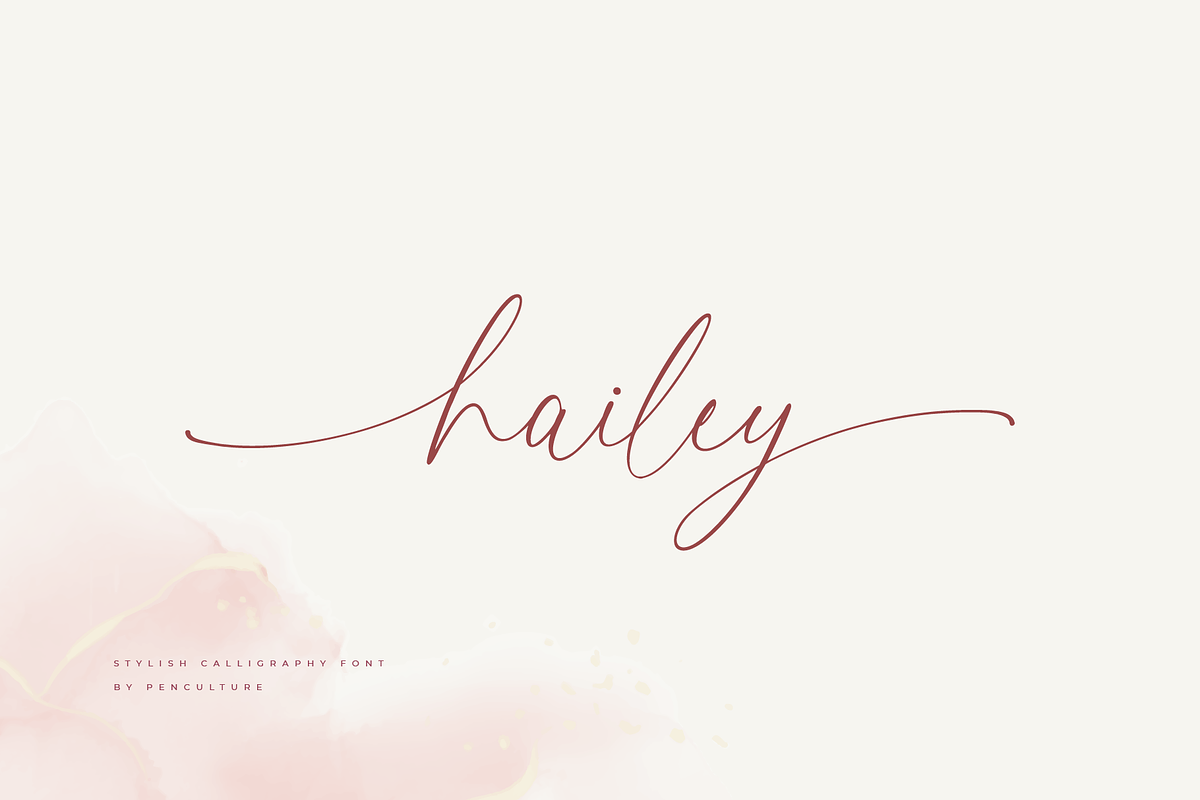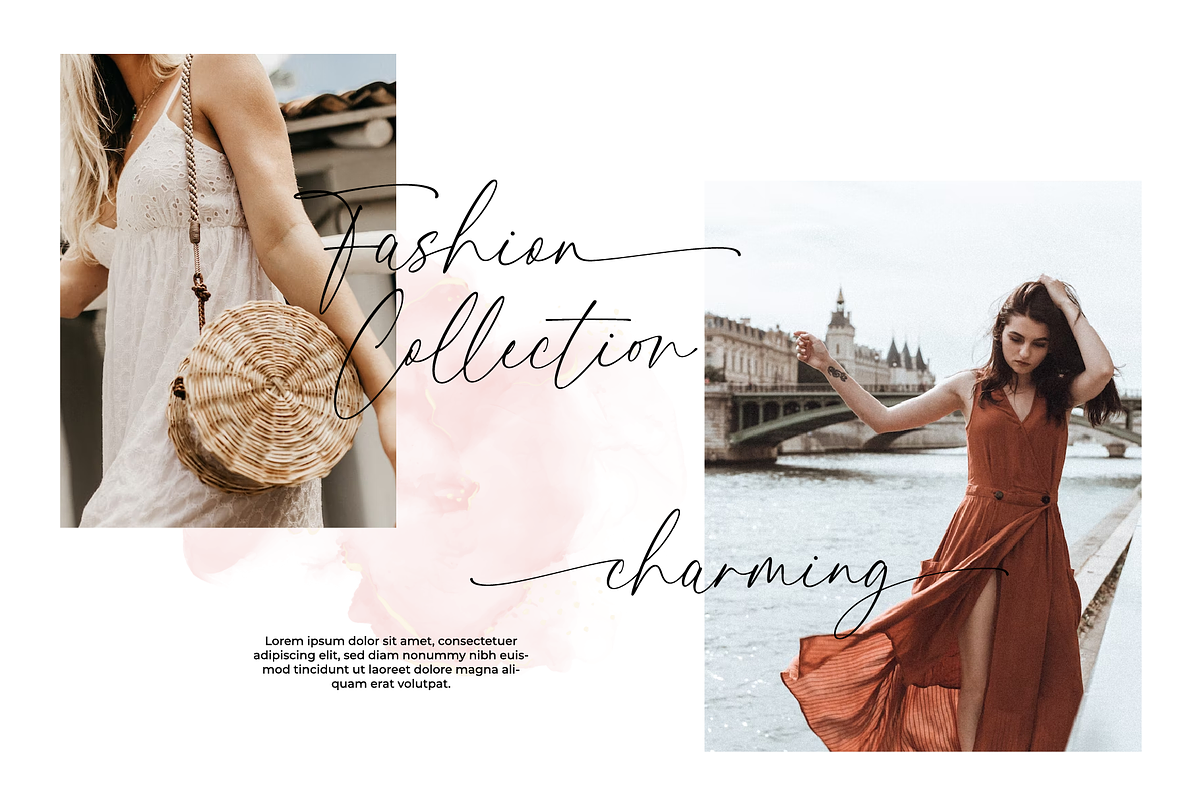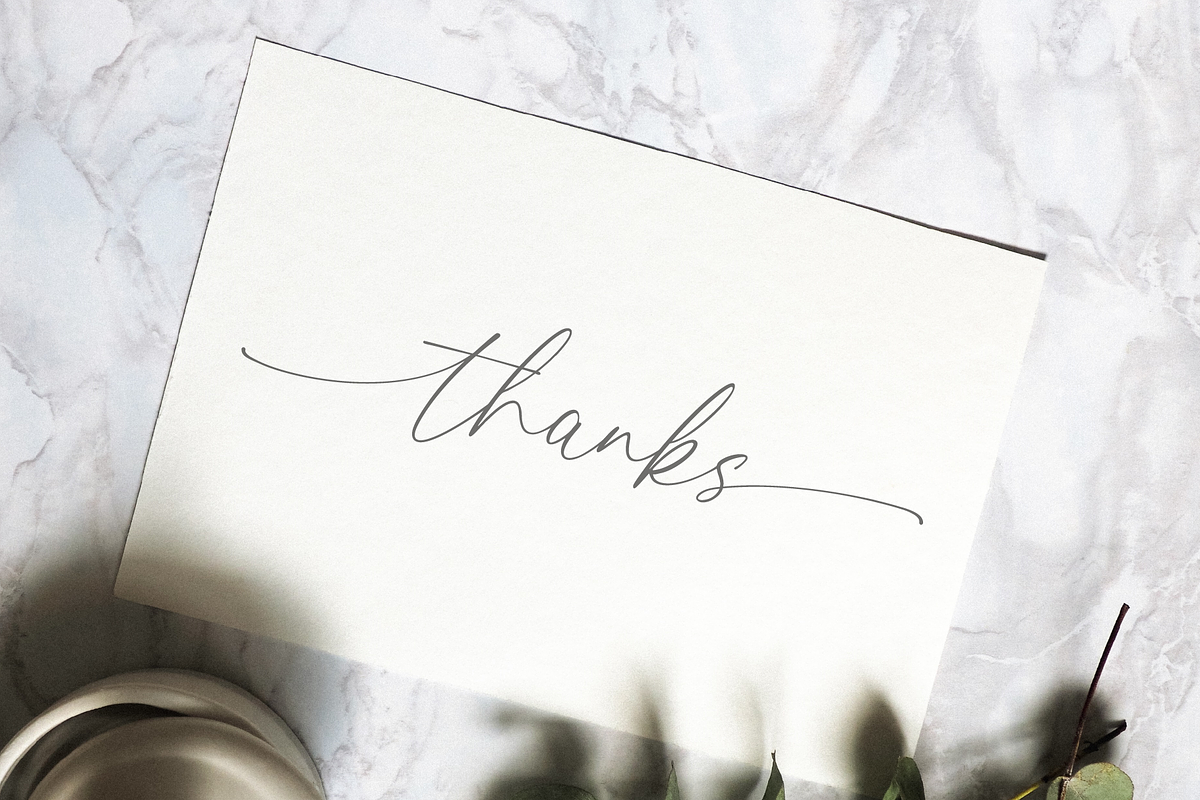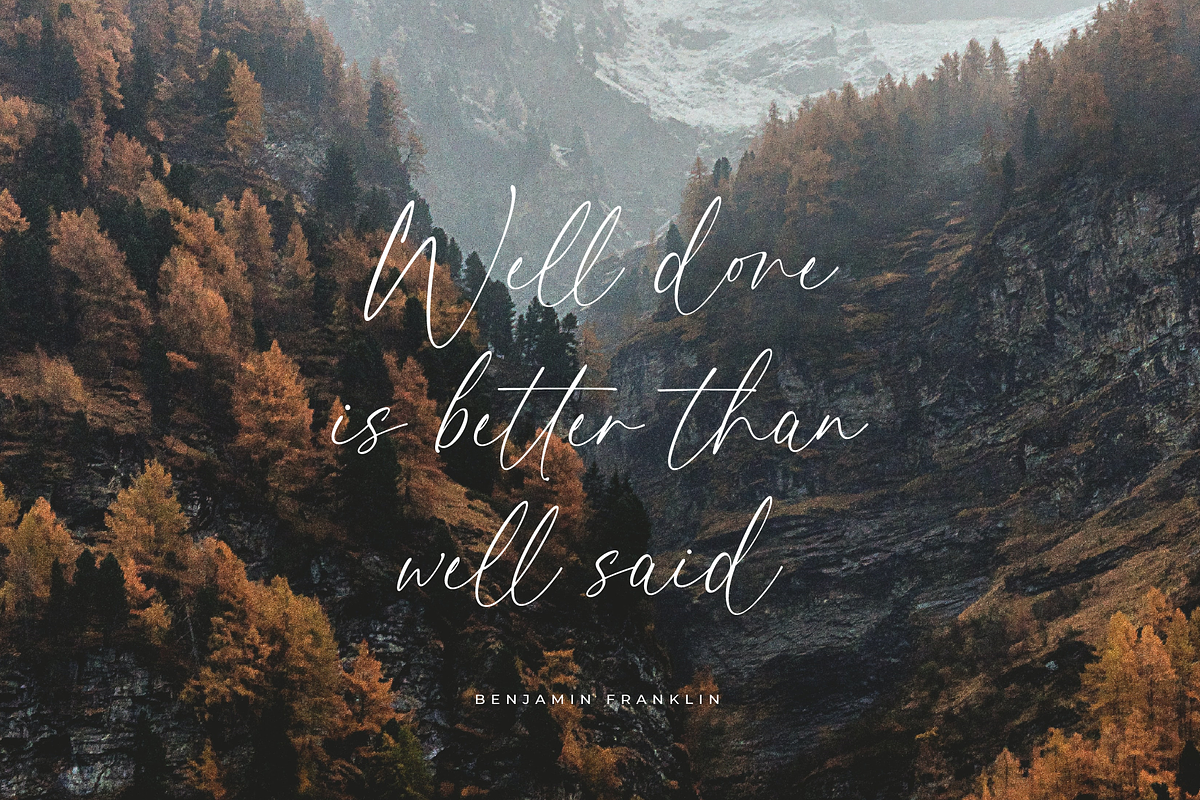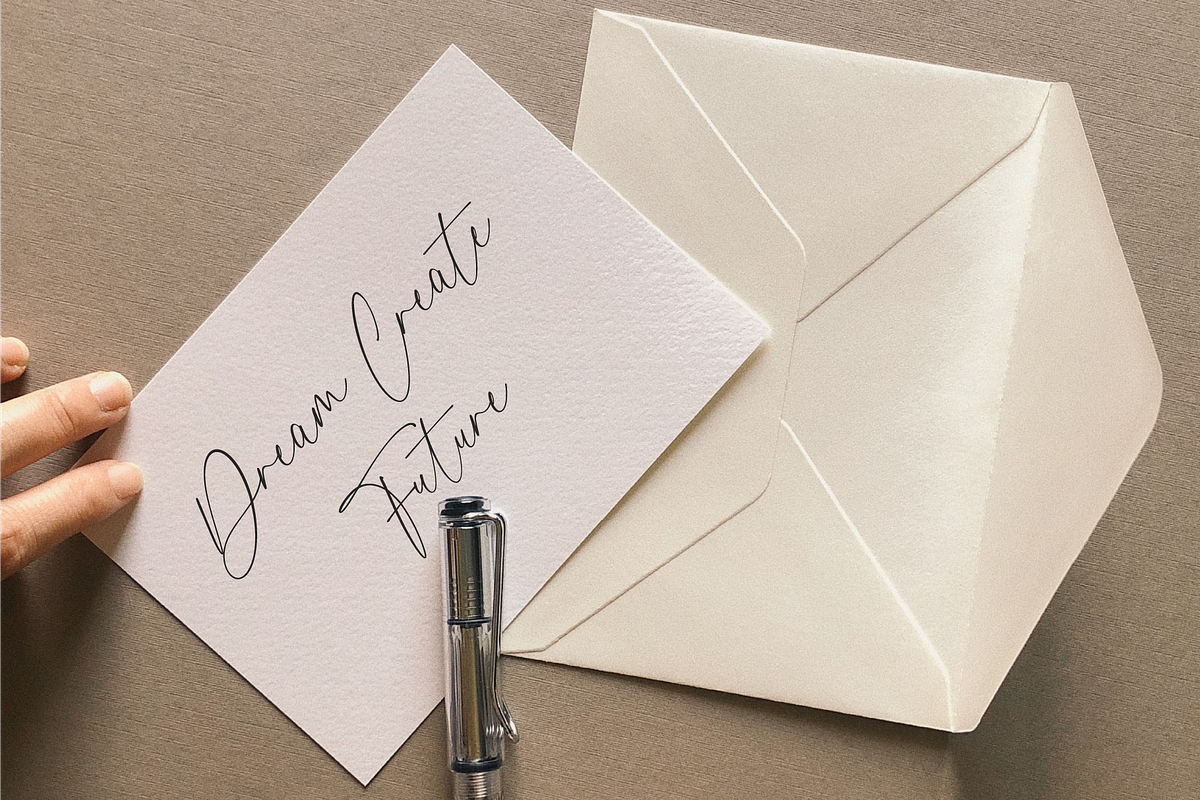
Hailey - Stylish Calligraphy Font
Introducing "Hailey - Stylish Calligraphy Font"
Hailey is a modern calligraphy font that perfect for wedding invitation, branding, logo and many more. this font come with fully uppercase and lowercase, number and punctuation also has beautiful beginning and ending swashes.